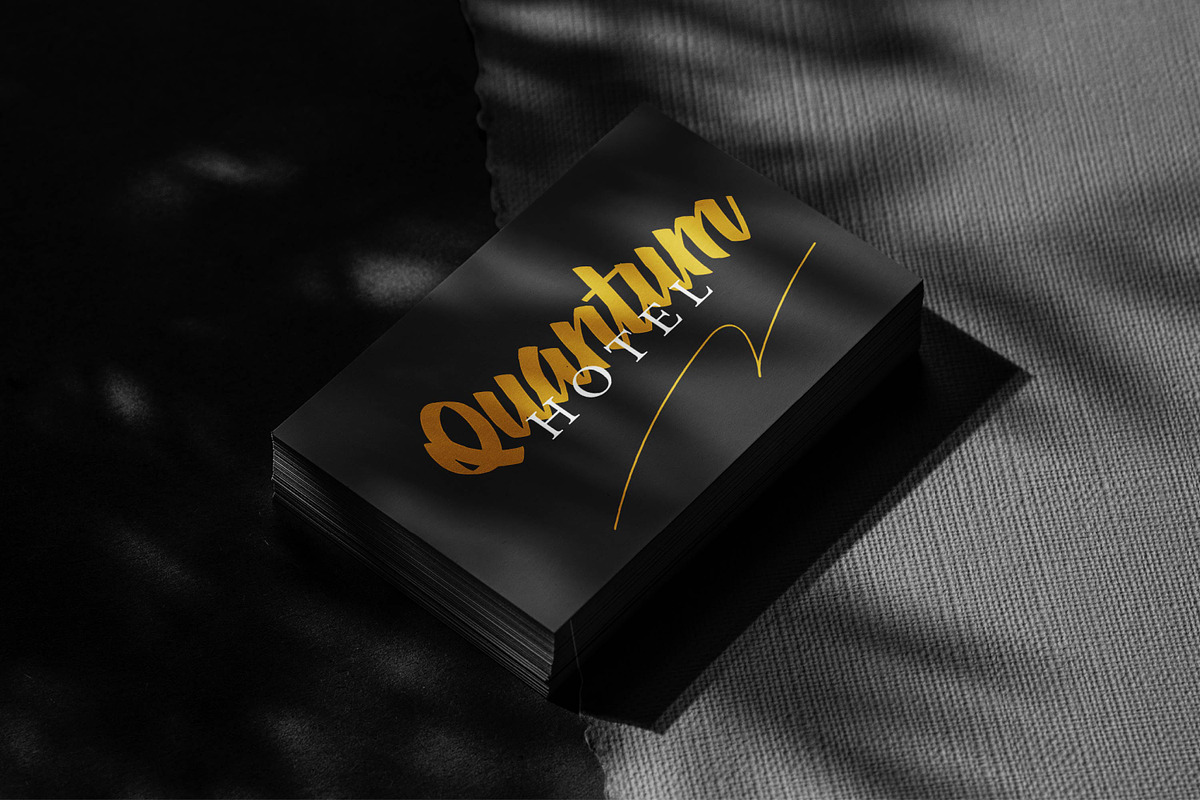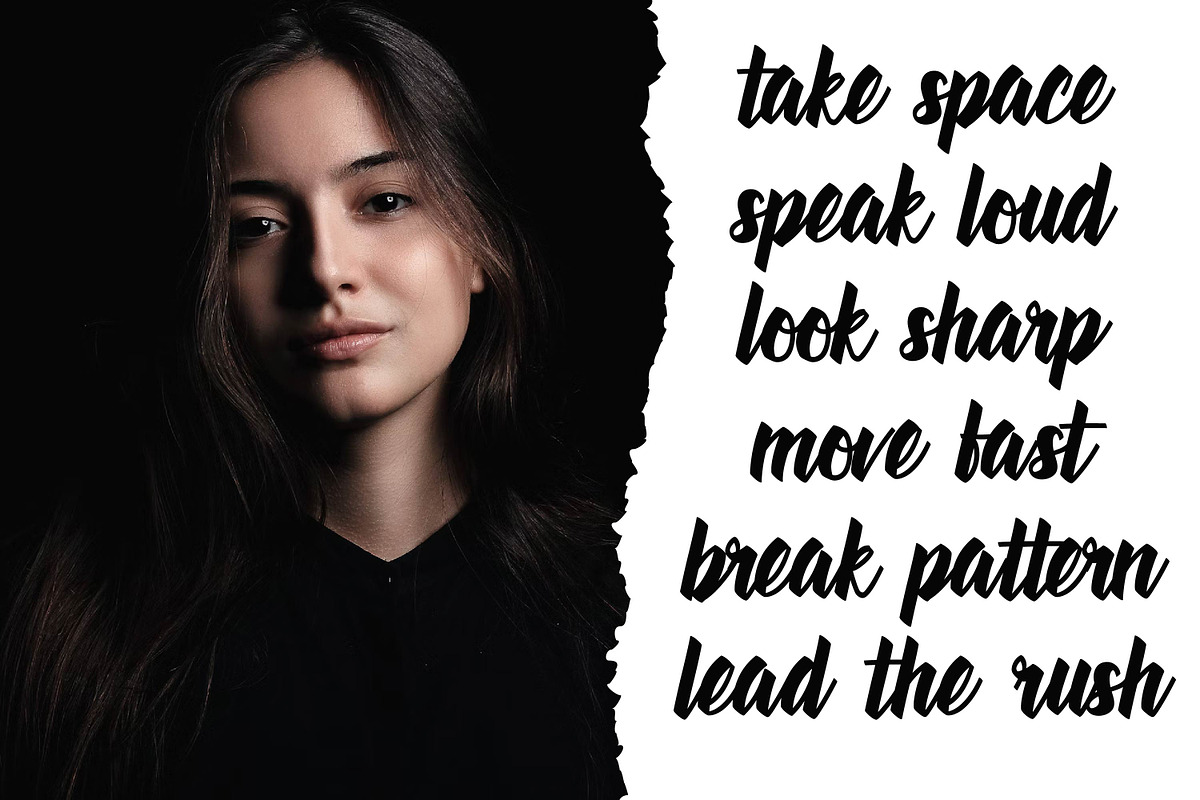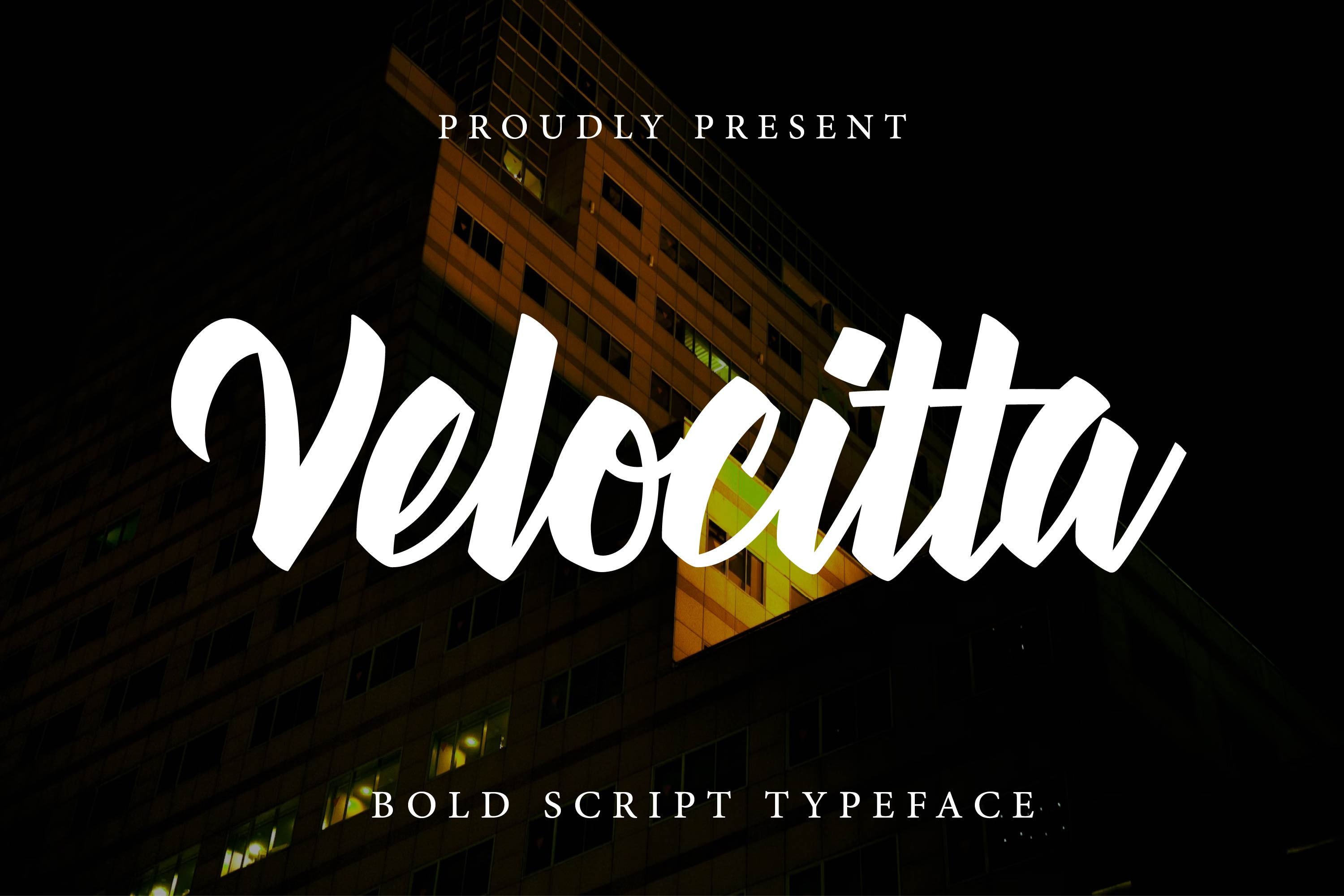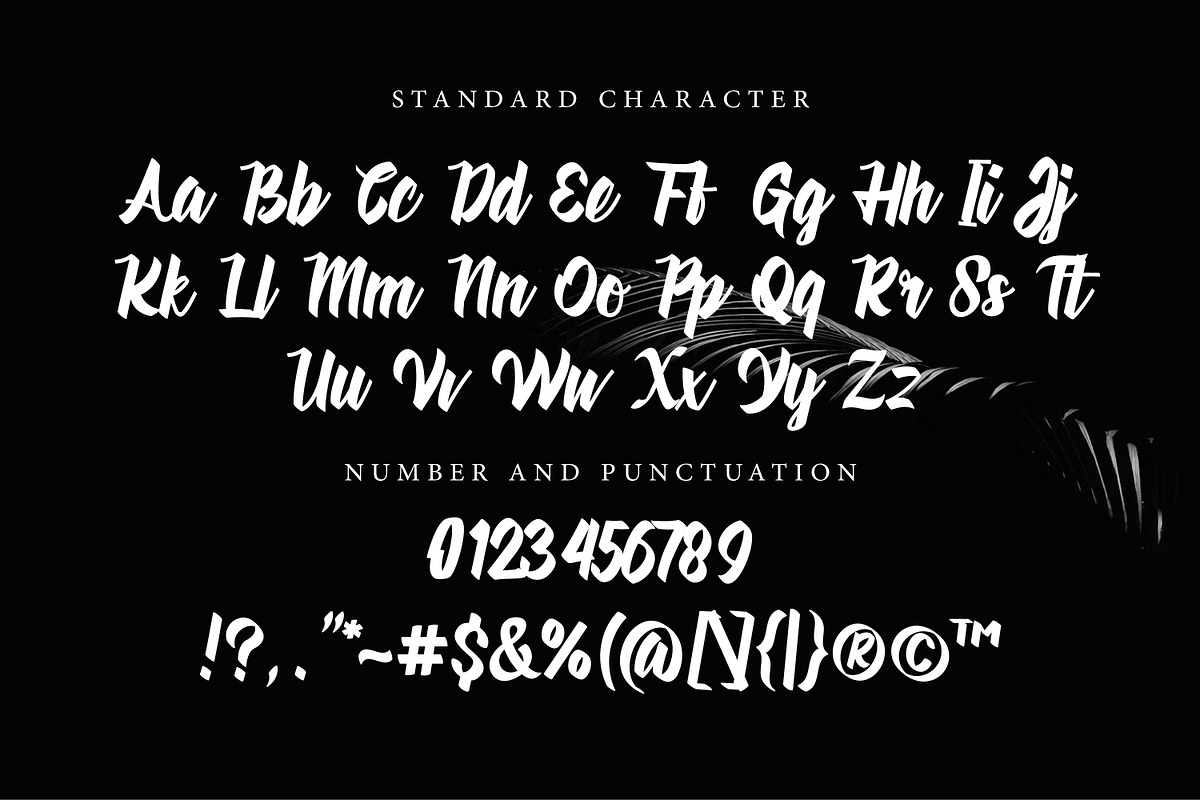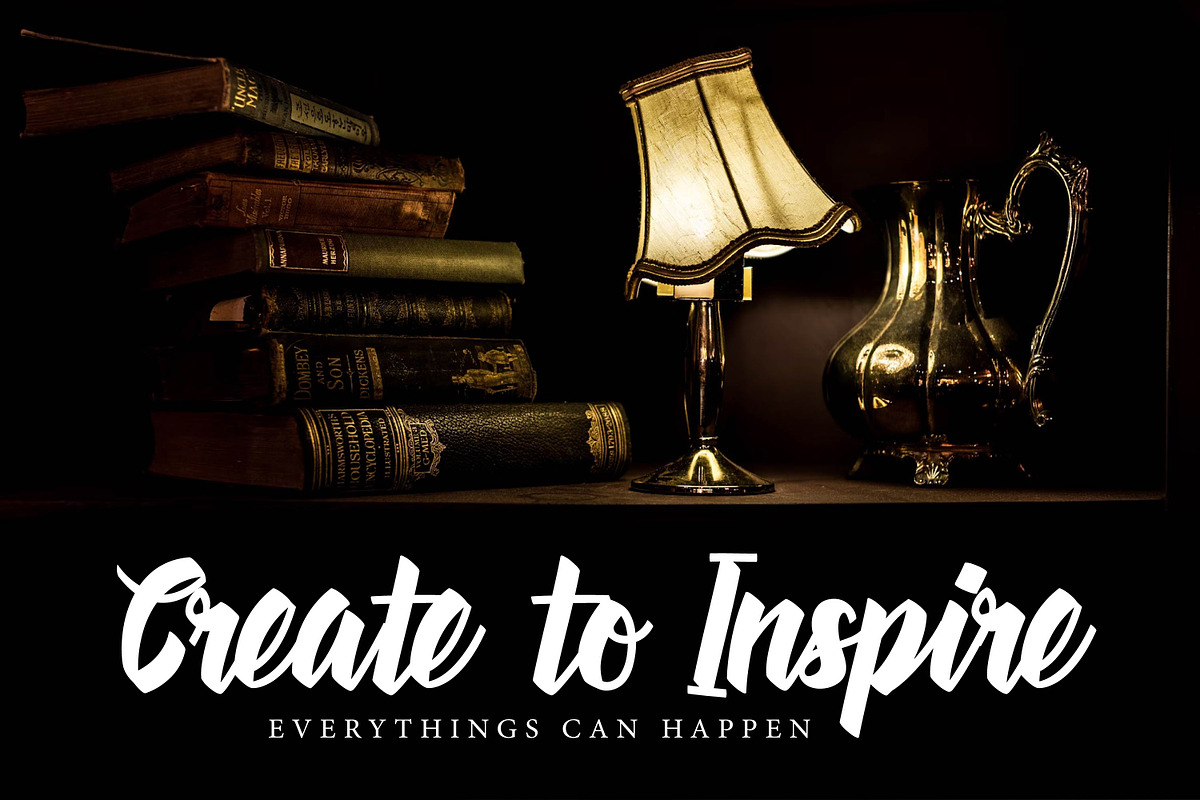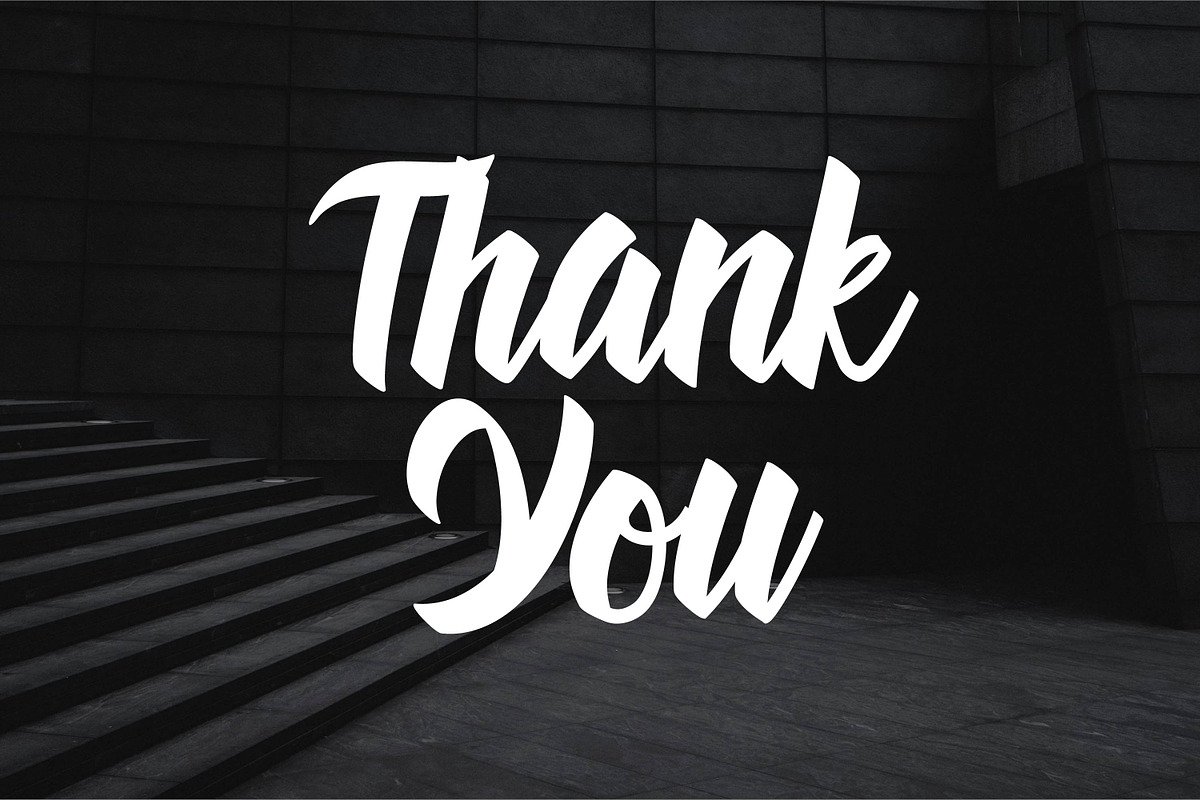
Velocitta - Script Typeface
Velocitta is a bold script typeface inspired by speed, strength, and confidence. With its sharp strokes and fluid motion, Velocitta commands attention in every design. Ideal for sports logos, urban branding, racing-themed posters, editorial titles, and apparel graphics — this font delivers energy and precision. Whether you're designing for motion or emotion, Velocitta moves your message with force.